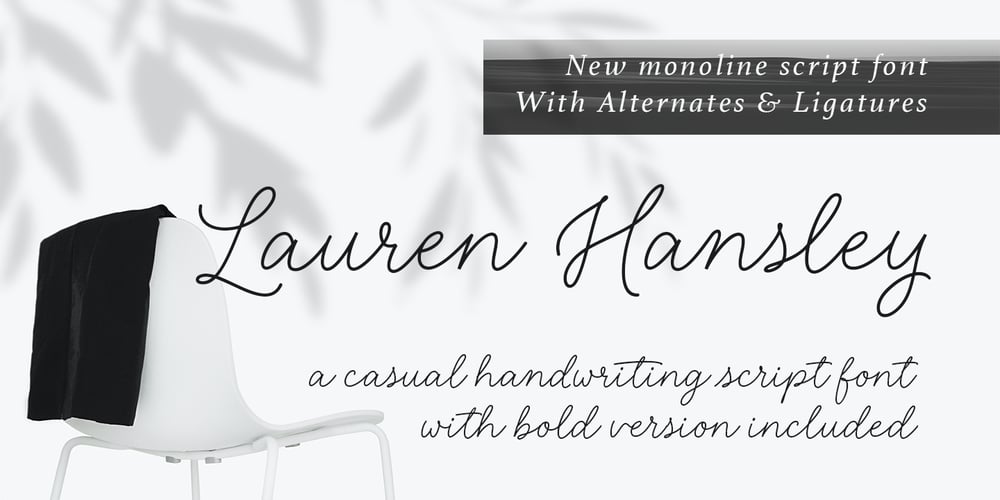
Lauren Hansley Font Family was designed by Fajar Gunawan and published by Fargun Studio. Lauren Hansley contains 2 styles and family package options. Introducing the new ‘Lauren Hansley’ script font – A fashionable and super-chilled new handwriting font script with some sexy stylish ligatures and alternates 😉